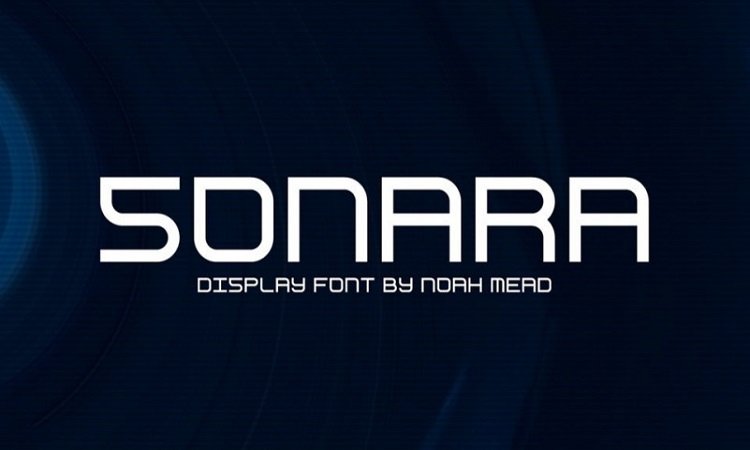
Sonara Display Font Family
Sonara Display Font Family is a modern display sans typeface will look gorgeous on all your designs.Made from font designer named Noah Mead. And It’s a creative display typeface based square shapes. The family featured by 4 fonts – Regular and Rounded with their Italics. These fonts works great for display purposes, headlines, titles, posters, covers and more.